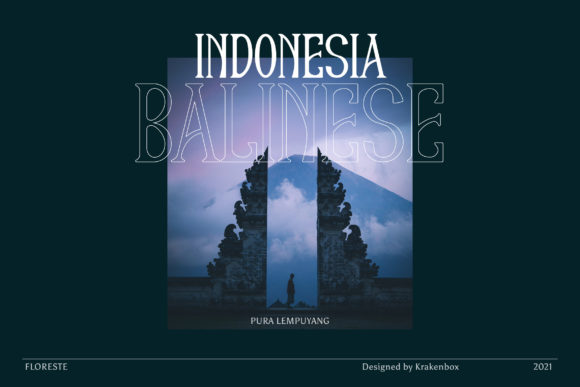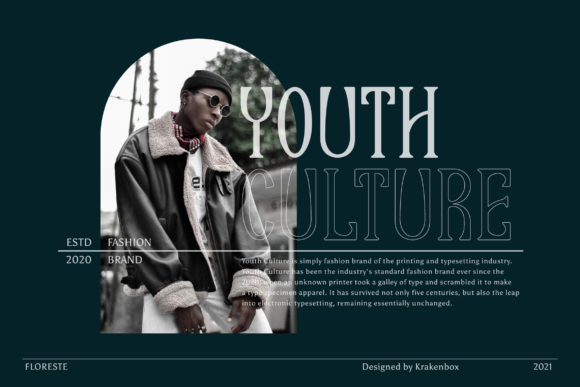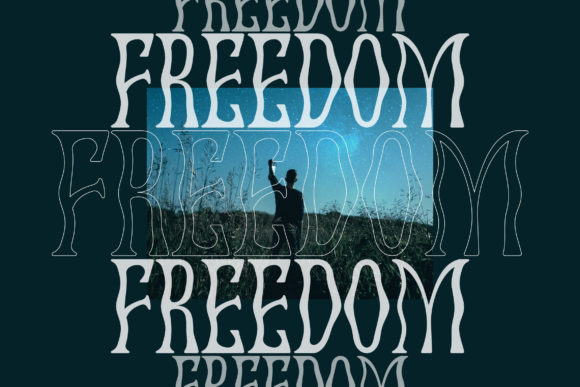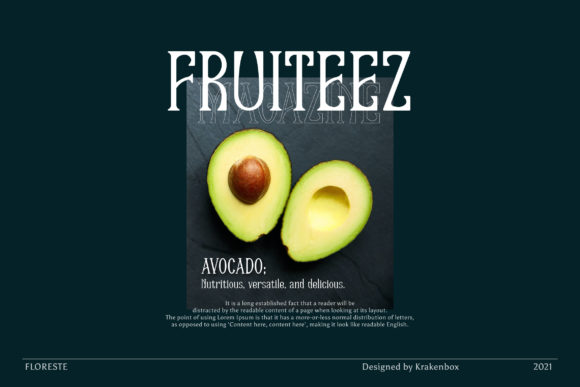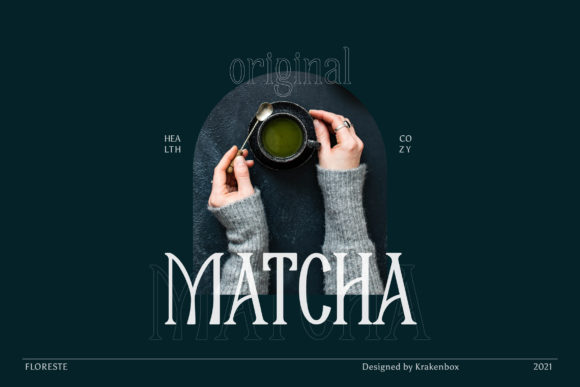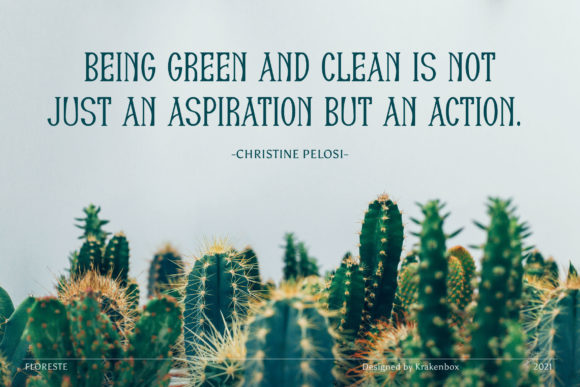
Discover the Elegance of Floreste Font: Elevate Your Designs with this Stunning Serif Font
Are you a designer or crafter looking for a font that exudes elegance and sophistication? Look no further than Floreste Font. This tall and thin lettered serif font is perfect for adding a touch of refinement to any design project. In this article, we’ll explore the features and benefits of Floreste Font, and show you how to make the most of its endless possibilities.
What is Floreste Font?
Floreste Font is a beautifully crafted serif font that boasts a tall and thin lettered design. Its sleek and refined appearance makes it perfect for use on posters, flyers, prints, and other design materials where elegance is key. Whether you’re working on a branding project, a wedding invitation, or a luxury product advertisement, Floreste Font is sure to make a lasting impression.
Key Features of Floreste Font
- Tall and Thin Lettering: Floreste Font features tall and thin lettering that adds a touch of sophistication to any design.
- Serif Design: The font’s serif design adds a classic touch to any project, making it perfect for traditional and luxury brands.
- Highly Versatile: Floreste Font can be used on a wide range of design materials, from posters and flyers to business cards and product labels.
- Elegant and Refined: The font’s elegant and refined appearance makes it perfect for designs that require a touch of sophistication.
Benefits of Using Floreste Font
So why choose Floreste Font for your design projects? Here are just a few benefits of using this stunning serif font:
- Adds Elegance to Your Designs: Floreste Font adds a touch of elegance and sophistication to any design, making it perfect for luxury brands and high-end products.
- Improves Readability: The font’s clear and refined design makes it easy to read, even at small sizes.
- Increases Versatility: Floreste Font can be used on a wide range of design materials, making it a great addition to any designer’s toolkit.
Endless Possibilities with Floreste Font
So what can you create with Floreste Font? The possibilities are endless! Here are a few ideas to get you started:
- Posters and Flyers: Use Floreste Font to create stunning posters and flyers that grab attention and leave a lasting impression.
- Wedding Invitations: Add a touch of elegance to your wedding invitations with Floreste Font.
- Luxury Product Advertisements: Use Floreste Font to create sophisticated advertisements for luxury products.
- Branding and Packaging: Use Floreste Font to create a cohesive brand identity that exudes elegance and sophistication.
In conclusion, Floreste Font is a stunning serif font that is perfect for designers and crafters looking to add a touch of elegance to their design projects. With its tall and thin lettered design, classic serif appearance, and highly versatile nature, Floreste Font is sure to become a favorite in your design toolkit. So why wait? Download Floreste Font today and explore its endless possibilities!
Whether you’re a seasoned designer or just starting out, Floreste Font is a great choice for any design project that requires a touch of sophistication and elegance. So go ahead, get creative, and see what amazing designs you can create with Floreste Font!